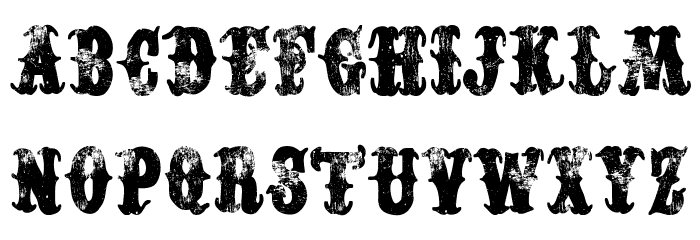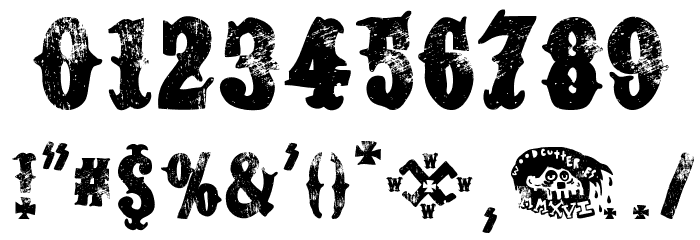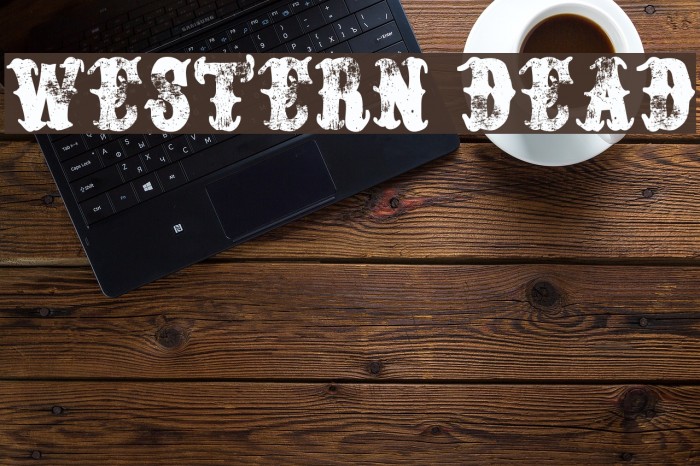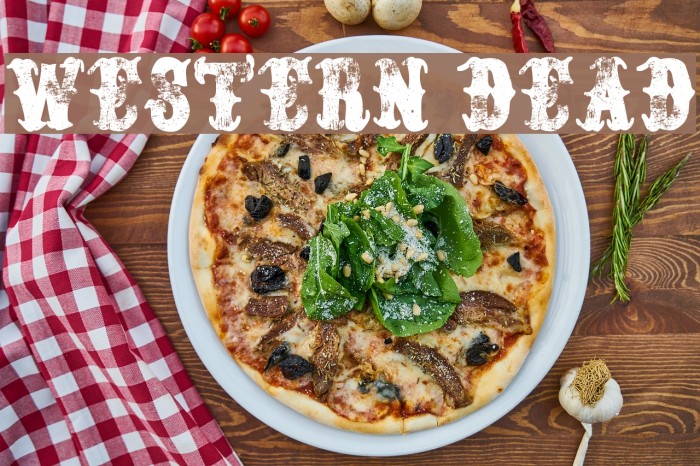
Western Dead Font
This font exudes a rugged, distressed aesthetic reminiscent of the Old West. Each character is heavily textured, giving the impression of weathered wood or worn leather, which adds a sense of authenticity and vintage charm. The bold, slab serif style is accentuated by irregular edges and a rough, grunge-like finish, making it ideal for designs that require a touch of rustic or rebellious flair. The font's unique character is further enhanced by its bold weight and wide stance, ensuring high visibility and impact. Perfect for capturing attention, it embodies a sense of adventure and nostalgia, making it a great choice for themed projects.
A rugged, distressed slab serif font with a bold, vintage Western aesthetic.
- Proposed Projects: Ideal for Western-themed posters, vintage branding, rustic signage, and adventurous graphic designs.
- Overall Style: Vintage